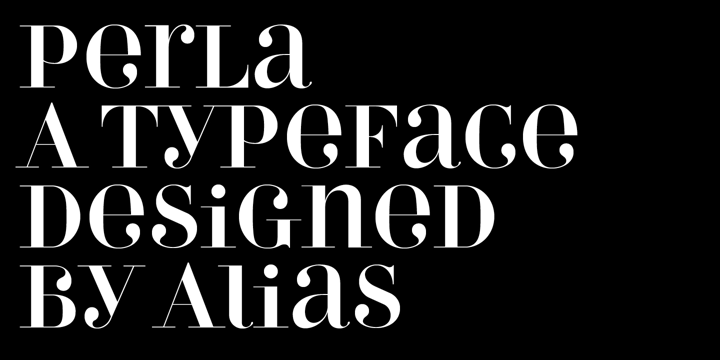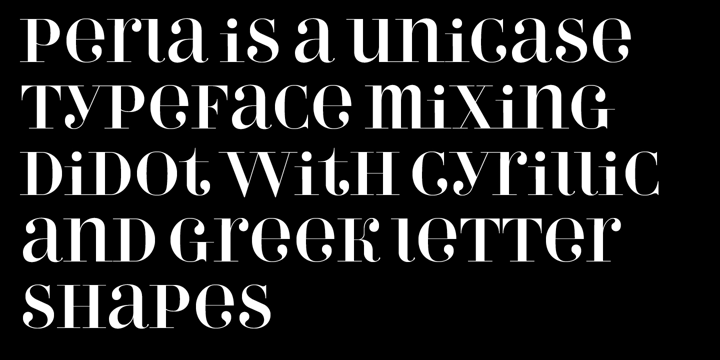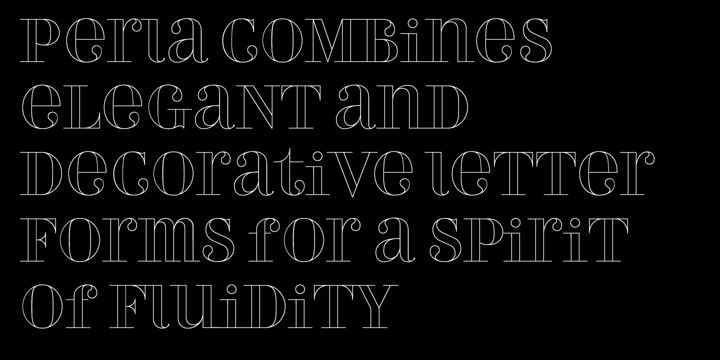
Perla
Font Family by Alias
A display typeface, a didot in upper case only, but with a set of decorative alternate characters mixing semi-cyrillic and lower case influences.